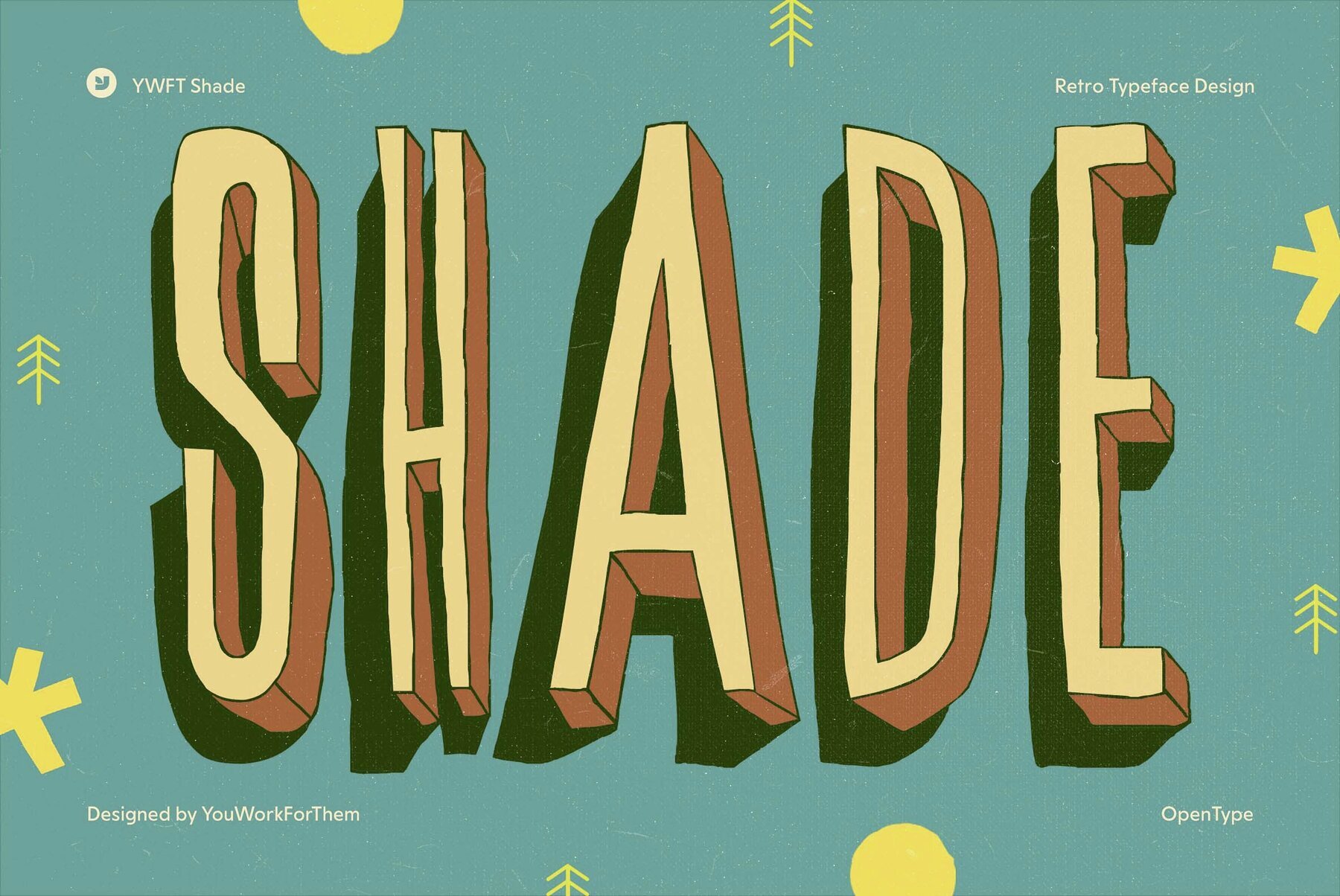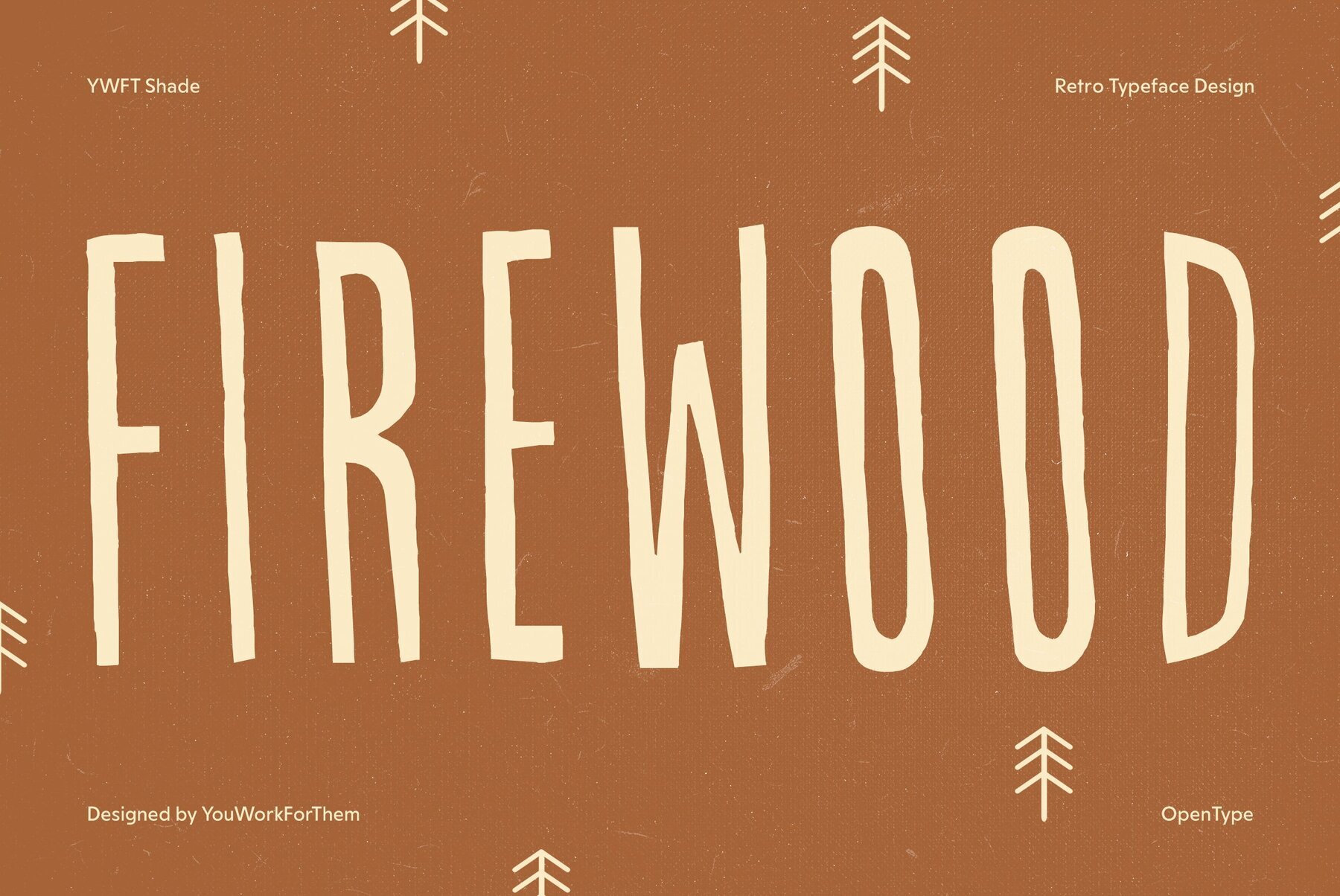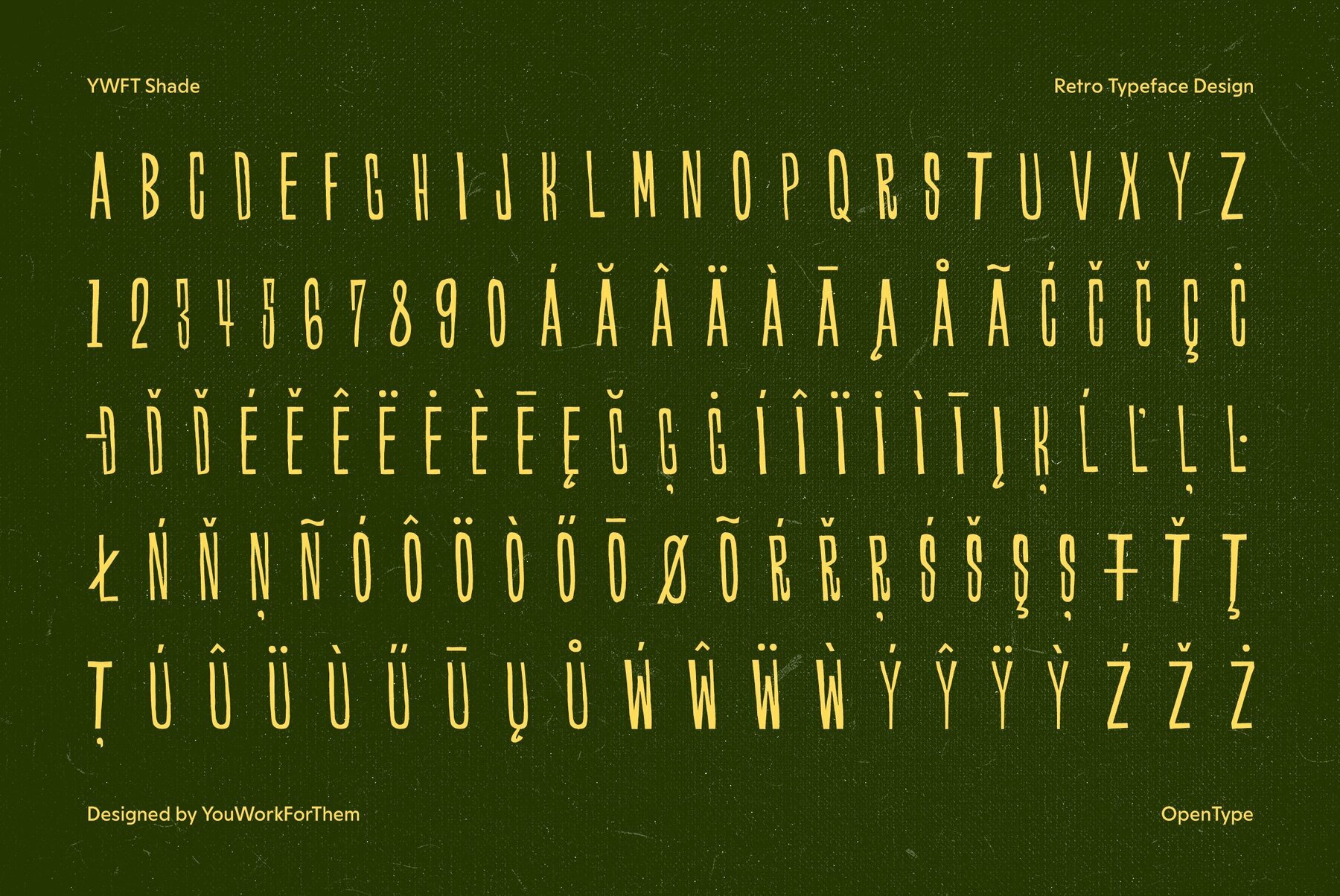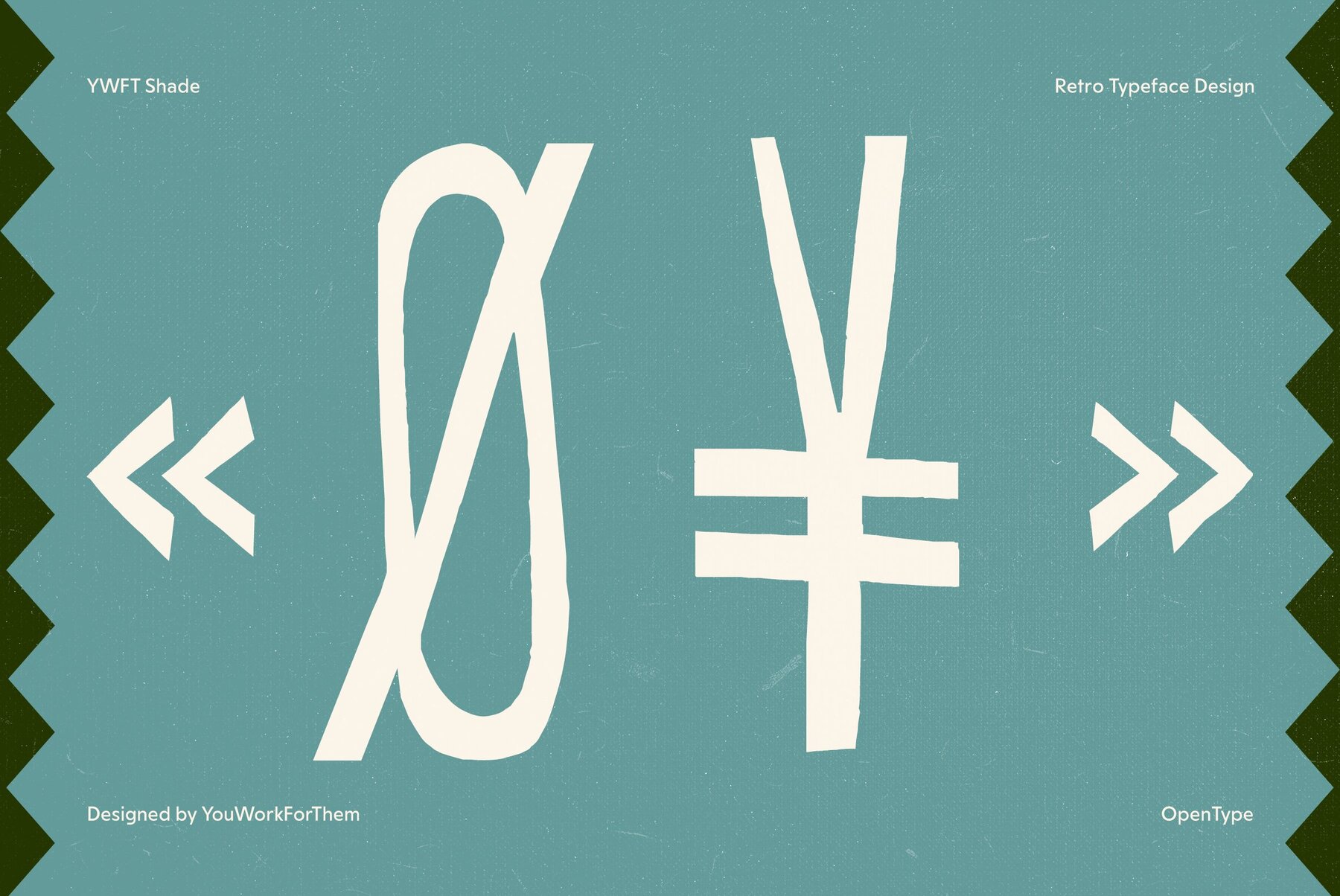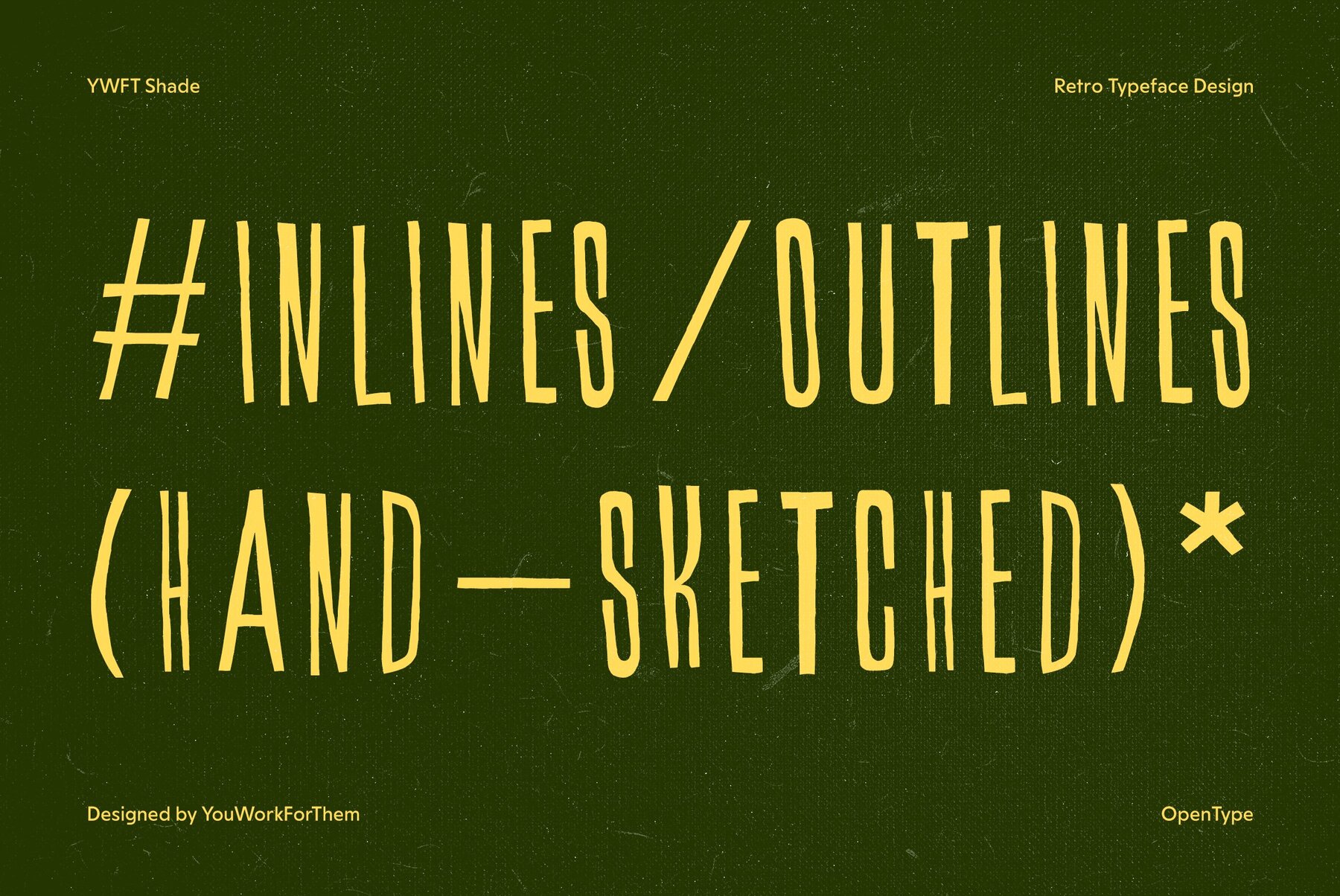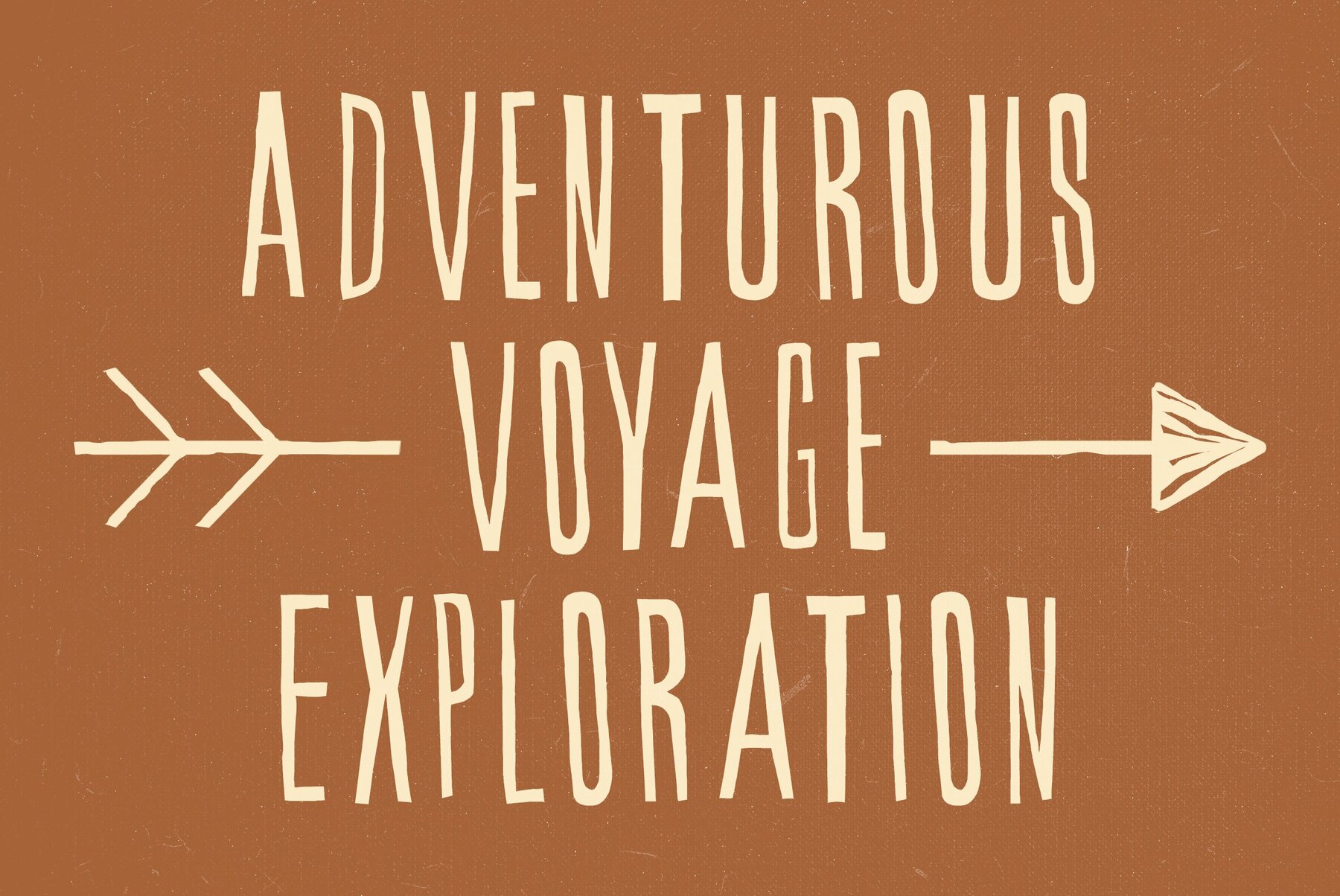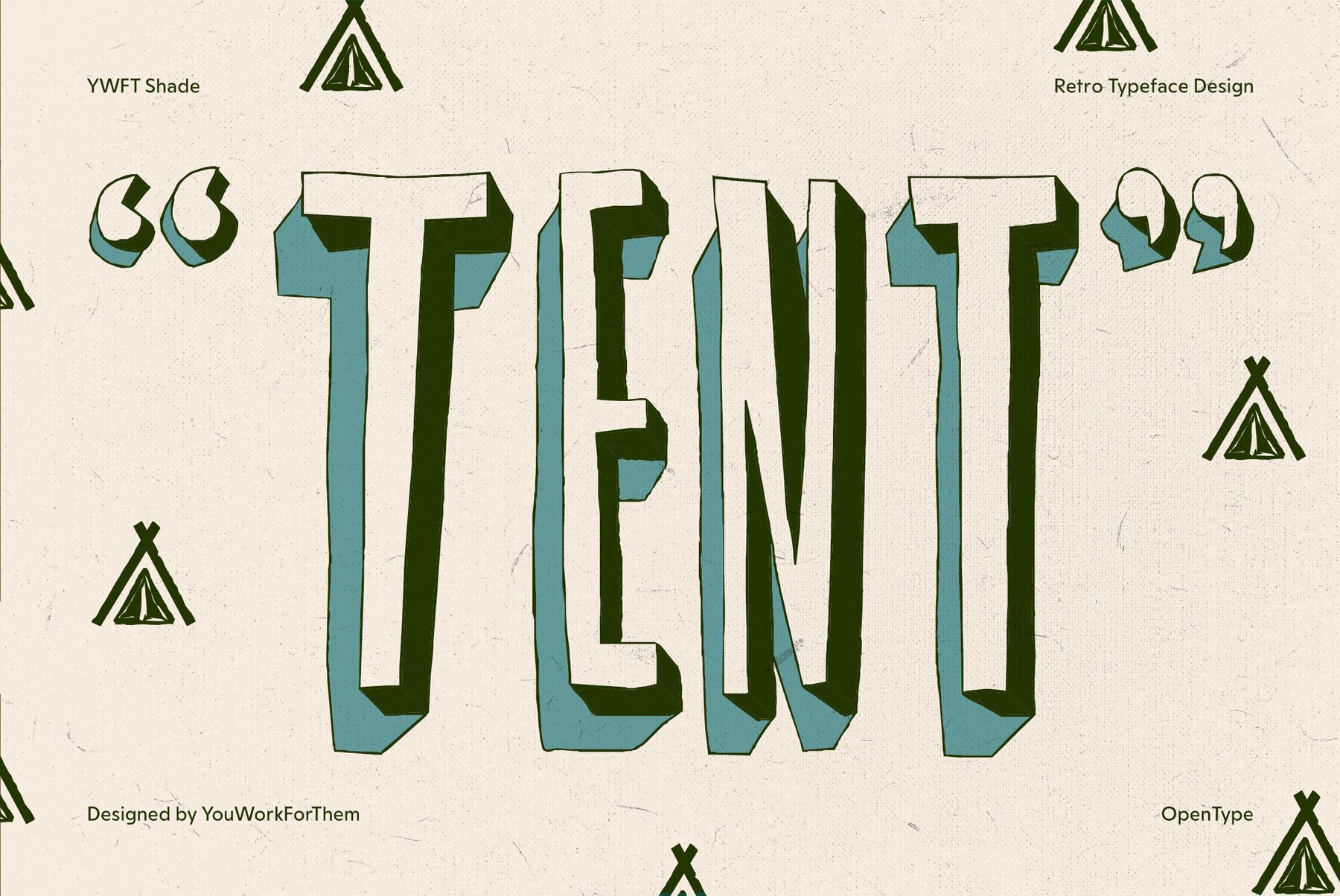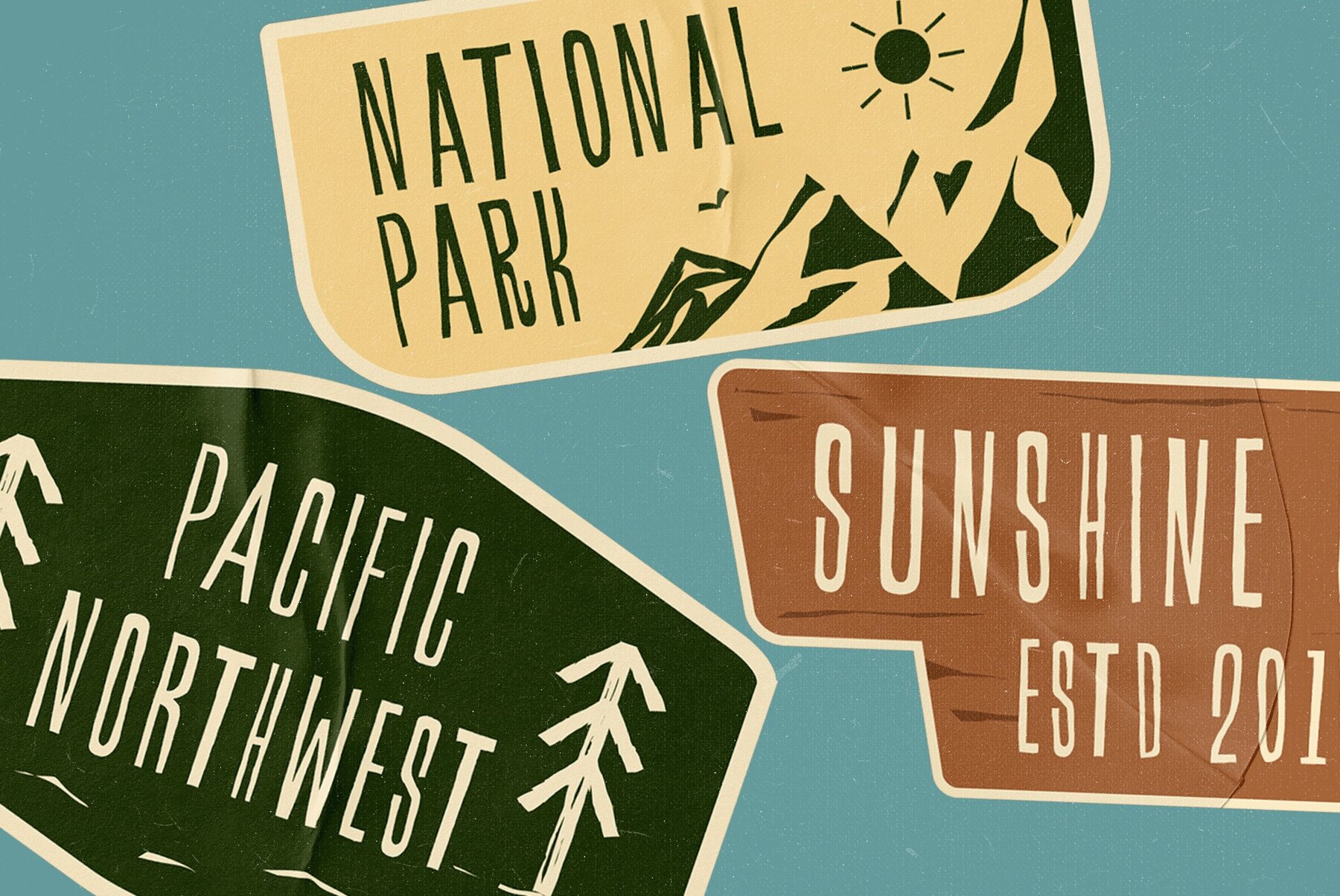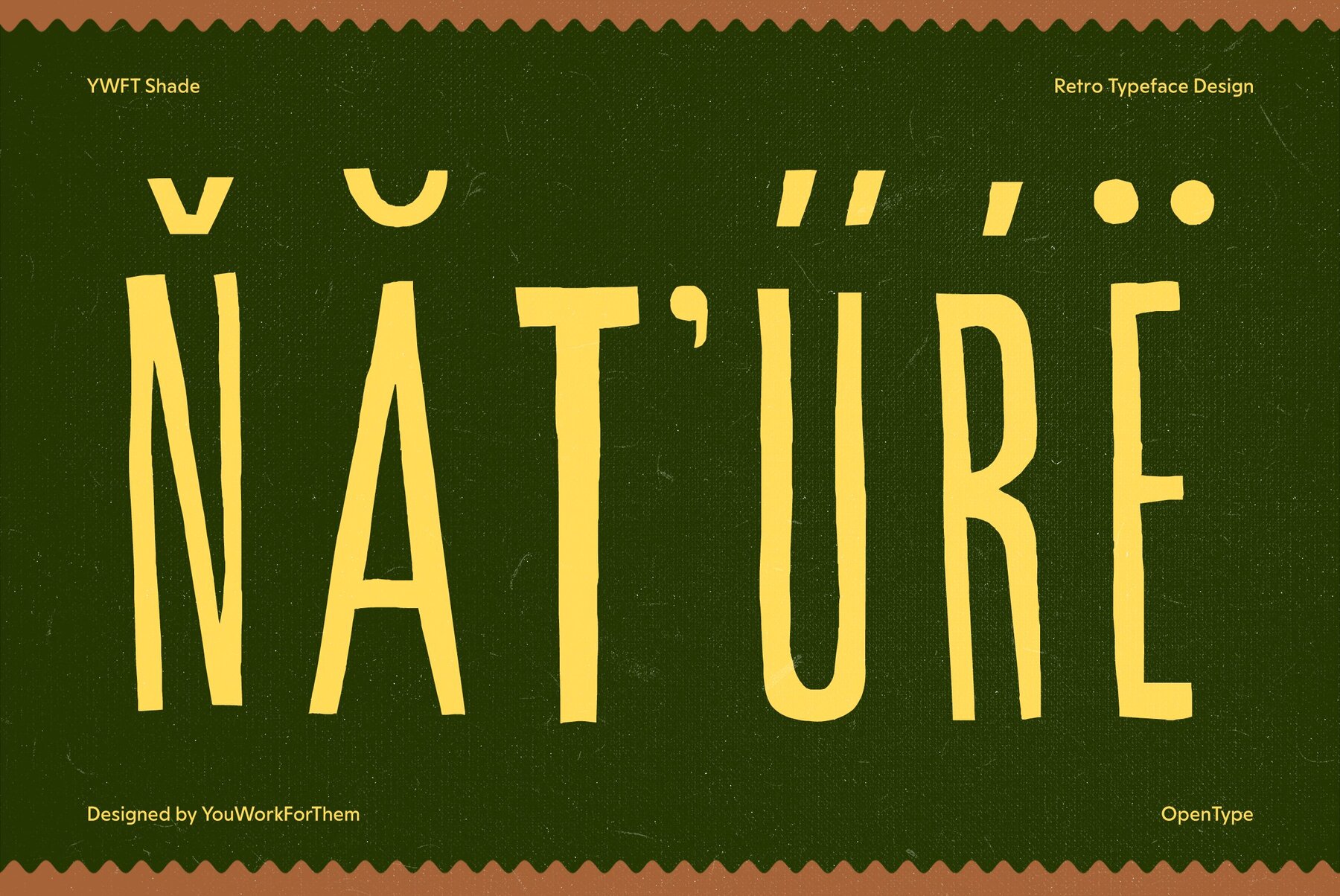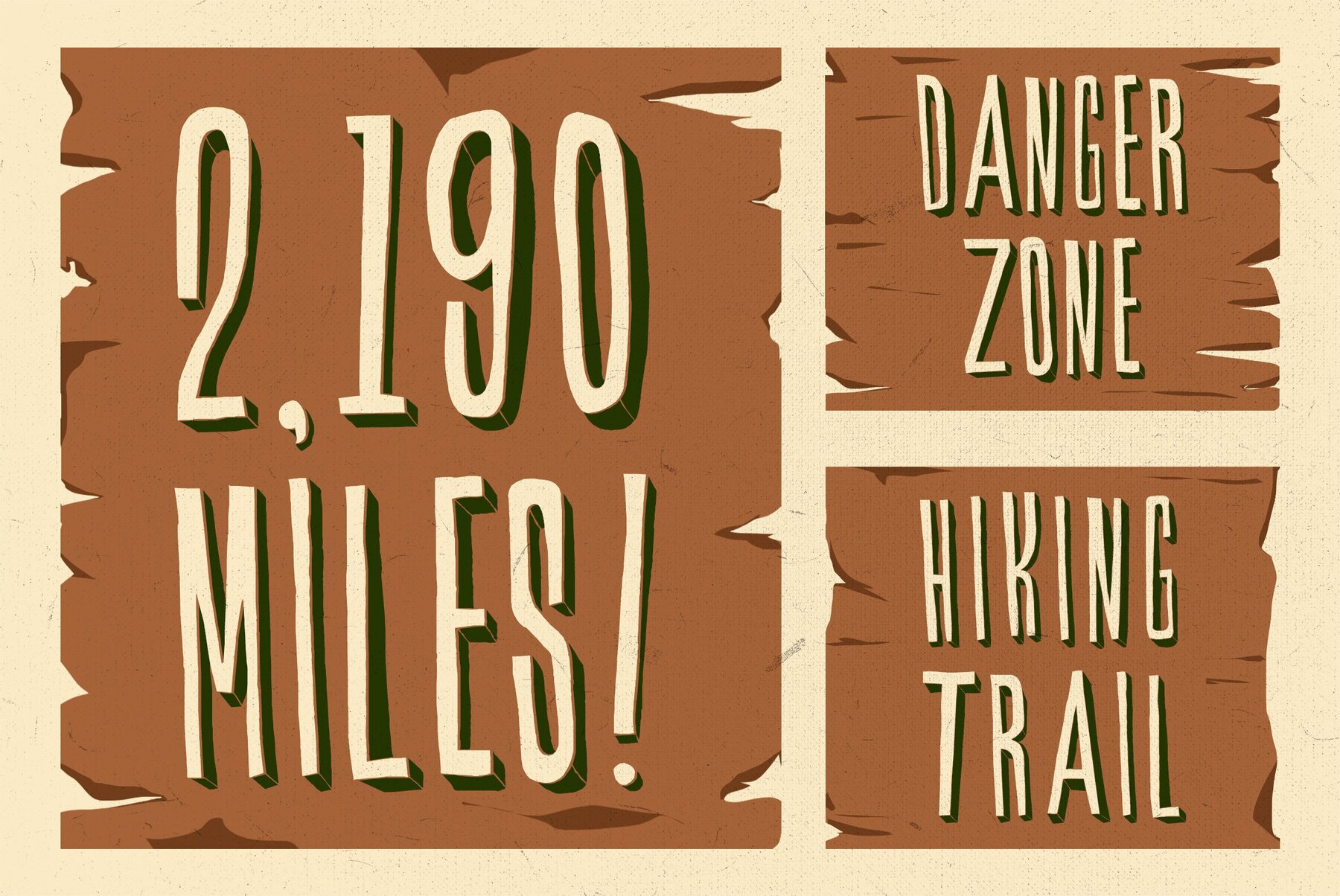
YWFT Shade Font
YWFT Shade Normal
YWFT Shade Line
YWFT Shade Shadow
YWFT Shade Volume
by YWFT Jeff Rogers
YWFT Shade is an original Jeff Rodgers handset design, now converted into a working system font by the designers at YouWorkForThem. All the inlines, drop shades, and outlines of the original artwork has been preserved with great attention to detail. Fans of that hand-sketched simplicity will want to grab some of the artisanal primitive impact of YWFT Shade!
A Texas native, Jeff currently makes his home in NYC where he works as a designer and illustrator. During the day he creates Broadway Theatre posters at SpotCo and by night he is usually drawing type or working on other design projects. He has created custom lettering for such clients as Nike, The New York Tim...